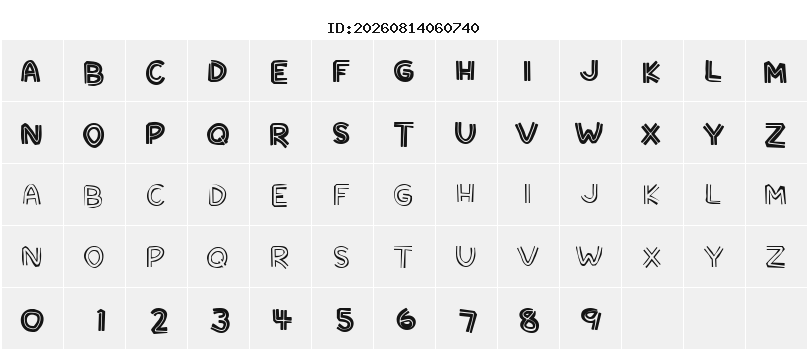
• Font Name: SuperTiki
• Full Font Name: SuperTiki
• Character Count: 73
About SuperTiki.ttf
SuperTiki.ttf is a modern, elegant sans-serif font designed for ultimate readability and visual harmony. Perfect for branding, headlines, web design, and print materials.